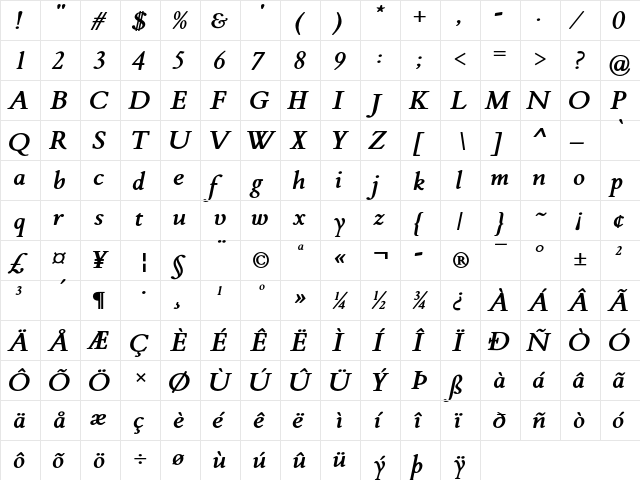
Flanker Griffo Bold Italic
| Designer | Francesco da Bologna, Leonardo Di Lena |
Design Context for Flanker Griffo Typeface
Flanker Griffo takes a measured approach to typography — its balanced proportions and neutral character make it a reliable workhorse for both digital and print work. The dynamic lean of this cut emphasises speed and emphasis in any layout. Its bold stroke weight gives it real presence on the page.
Pro Tip: Use Flanker Griffo for emphasis, pull quotes, and subheadings where its slanted energy can add rhythm to the layout.